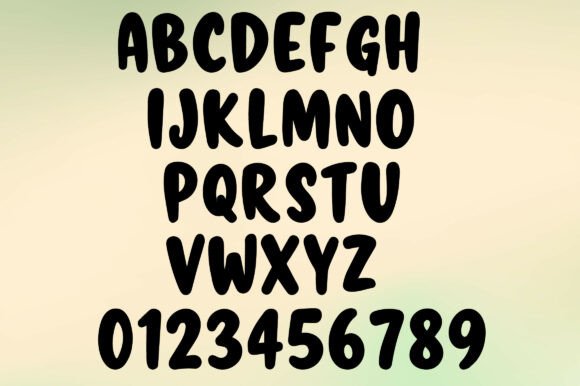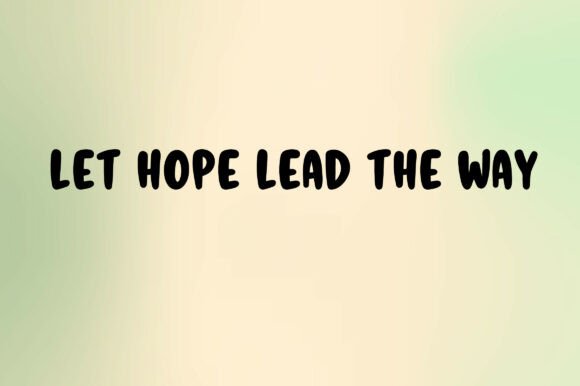
Happy Aura Font: A Friendly and Vibrant Typeface for Spreading Positivity
In the world of typography, fonts play a crucial role in conveying emotions and setting the tone for a brand or project. If you’re looking for a typeface that exudes warmth, approachability, and kindness, look no further than the Happy Aura font. This bold, rounded sans-serif font is designed to radiate a sense of comfort and positivity, making it perfect for projects that aim to spread joy and accessibility.
The Characteristics of Happy Aura Font
Happy Aura’s design is inspired by the smooth, rounded shapes of river stones or a warm hug. Its thick, soft letterforms are crafted to evoke a sense of comfort and friendliness, creating a vibe that is bouncy, comforting, and youthful. The font’s rounded edges and smooth curves make it an excellent choice for projects that require a friendly and approachable tone.
Ideal Use Cases for Happy Aura Font
Happy Aura font is ideal for a variety of projects that aim to spread positivity and kindness. Some of the ideal use cases for this font include:
- Kids’ yoga branding: Happy Aura’s playful and youthful vibe makes it an excellent choice for kids’ yoga branding. The font’s friendly and approachable tone will help create a welcoming atmosphere for young yogis.
- Smoothie shop logos: The font’s bouncy and comforting vibe is perfect for smoothie shop logos that aim to convey a sense of freshness and wellness.
- Mental health awareness campaigns: Happy Aura’s warm and approachable tone makes it an excellent choice for mental health awareness campaigns. The font’s positivity and kindness can help create a supportive and non-judgmental atmosphere for those who need it.
Why Choose Happy Aura Font?
There are many reasons why Happy Aura font stands out from other typefaces. Here are a few:
- Unique and playful design: Happy Aura’s rounded edges and smooth curves create a unique and playful design that will help your project stand out.
- Approachable and friendly tone: The font’s friendly and approachable tone makes it perfect for projects that aim to create a welcoming atmosphere.
- Highly versatile: Happy Aura font is highly versatile and can be used for a variety of projects, from branding and logos to posters and social media graphics.
Tips for Using Happy Aura Font
Here are a few tips for using Happy Aura font effectively:
- Use it with a clear message: Happy Aura font is designed to convey a sense of positivity and kindness. Use it with a clear message that aligns with your project’s goals.
- Experiment with colors: The font’s friendly and approachable tone makes it perfect for experimenting with different colors. Try pairing it with bright and bold colors to create a fun and playful vibe.
- Don’t overuse it: While Happy Aura font is perfect for creating a friendly and approachable tone, it’s essential to use it sparingly. Overusing the font can make your project look cluttered and overwhelming.
Happy Aura font is a friendly and vibrant typeface that is perfect for projects that aim to spread positivity and kindness. Its unique and playful design, approachable and friendly tone, and high versatility make it an excellent choice for designers and crafters. Whether you’re working on kids’ yoga branding, smoothie shop logos, or mental health awareness campaigns, Happy Aura font is sure to bring a sense of warmth and comfort to your project.
So why not give Happy Aura font a try? With its bold and rounded design, it’s sure to bring a smile to your audience’s faces and create a lasting impression.